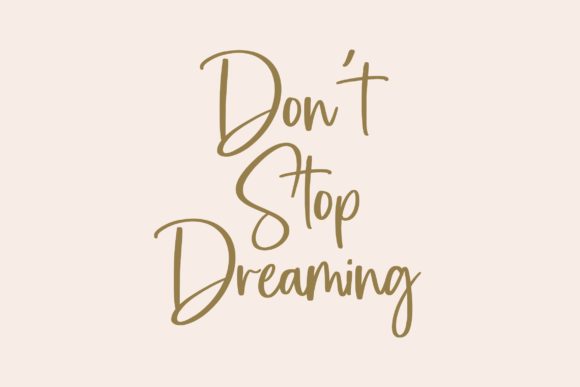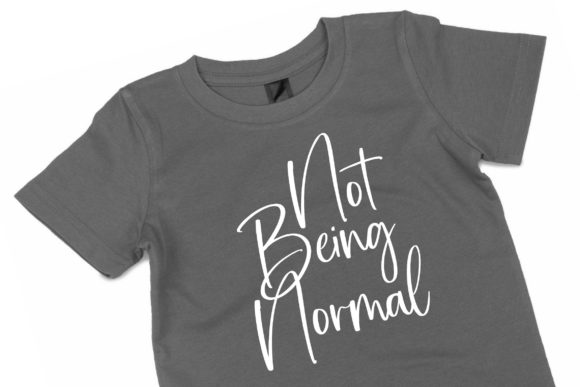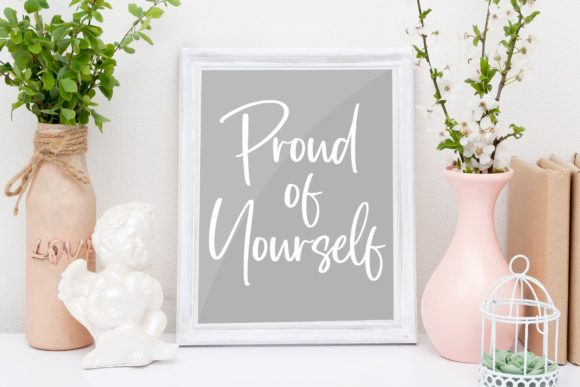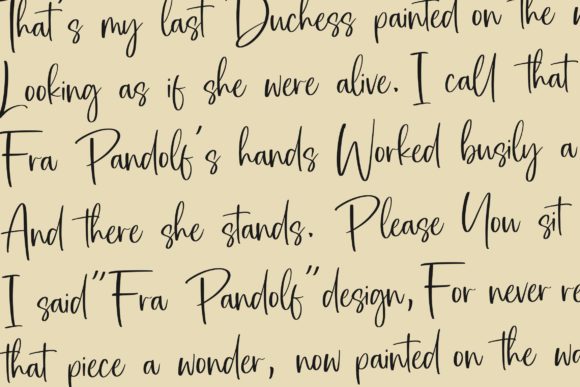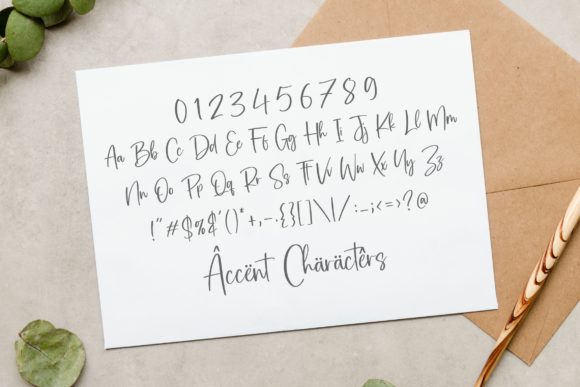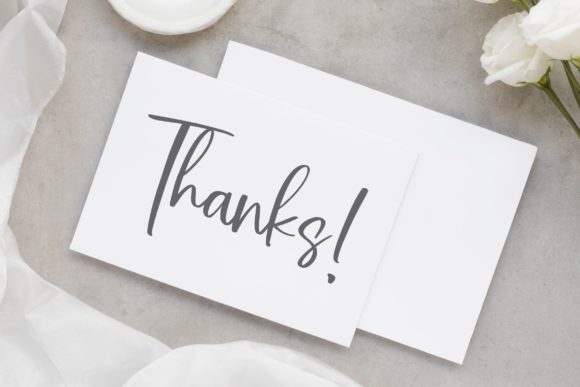
Bartes Malaga Font: Elevate Your Designs with Elegance
Are you on the hunt for a font that exudes elegance and sophistication? Look no further than the Bartes Malaga font. This stunning, flowing handwritten font is sure to capture your heart with its incredibly distinct and timeless style. In this article, we’ll dive into the world of Bartes Malaga, exploring its unique features, uses, and benefits for designers and crafters alike.
The Essence of Bartes Malaga
Bartes Malaga is a beautiful, handwritten font that boasts an elegant touch, making it perfect for a wide range of projects. Its flowing lines and curves create a sense of movement and fluidity, adding a touch of sophistication to any design. Whether you’re working on a logo, branding materials, or digital content, Bartes Malaga is sure to make a lasting impression.
Key Features of Bartes Malaga
- Flowing Handwritten Style: Bartes Malaga’s unique, handwritten style gives it a personal and organic feel, setting it apart from more traditional fonts.
- Elegant Touch: The font’s elegant lines and curves add a touch of sophistication, making it perfect for high-end designs.
- Distinct and Timeless: Bartes Malaga’s incredibly distinct style ensures it won’t go out of fashion anytime soon, making it a great investment for designers and crafters.
- Versatile: This font can be used for a wide range of projects, from logos and branding materials to digital content and more.
Uses for Bartes Malaga
Bartes Malaga’s versatility makes it an excellent choice for various design projects, including:
- Logo Design: Create a lasting impression with a custom logo that showcases your brand’s personality and style.
- Branding Materials: Use Bartes Malaga to create cohesive branding materials, such as business cards, letterheads, and more.
- Digital Content: Add a touch of elegance to your digital content, including social media graphics, blog posts, and website headers.
- Stationery and Invitations: Create beautiful stationery, invitations, and greeting cards that showcase your personal style.
Bartes Malaga offers numerous benefits for designers and crafters, including:
- Unique Style: Stand out from the crowd with a font that offers a unique and distinctive style.
Tips for Using Bartes Malaga
To get the most out of Bartes Malaga, follow these expert tips:
- Pair with Neutral Colors: Pair Bartes Malaga with neutral colors to create a clean and elegant design.
- Experiment with Sizes: Play with different font sizes to create visual interest and hierarchy in your design.
- Add Texture and Patterns: Add texture and patterns to your design to give it an extra layer of depth and interest.